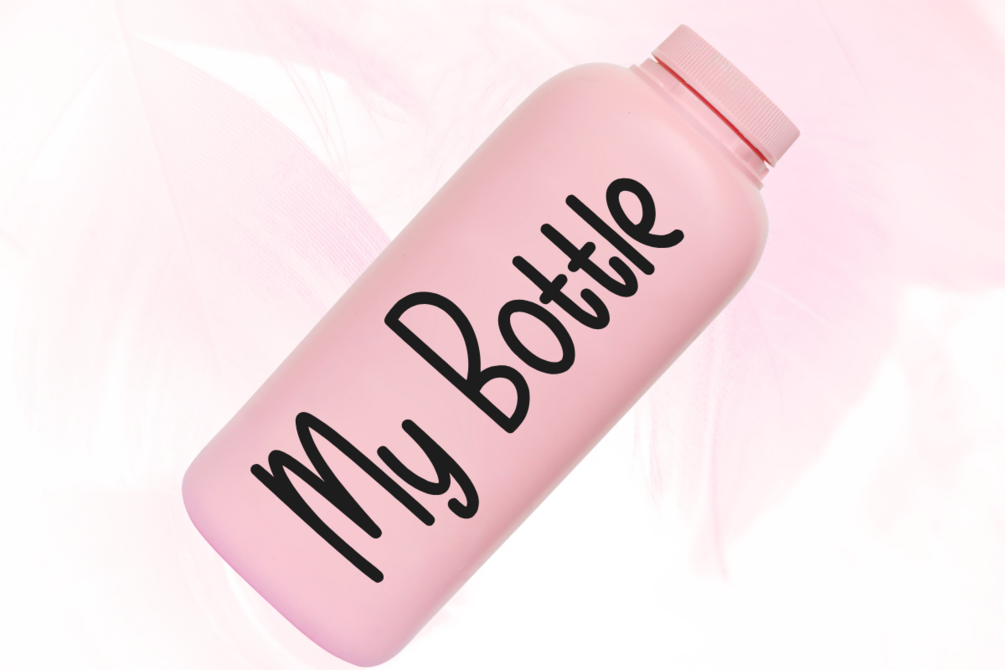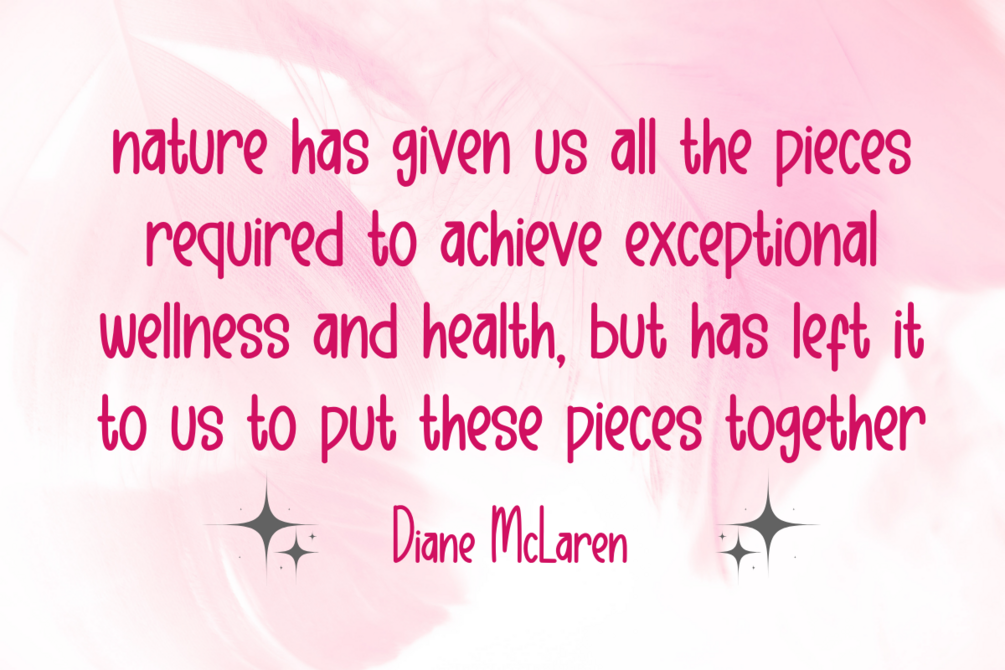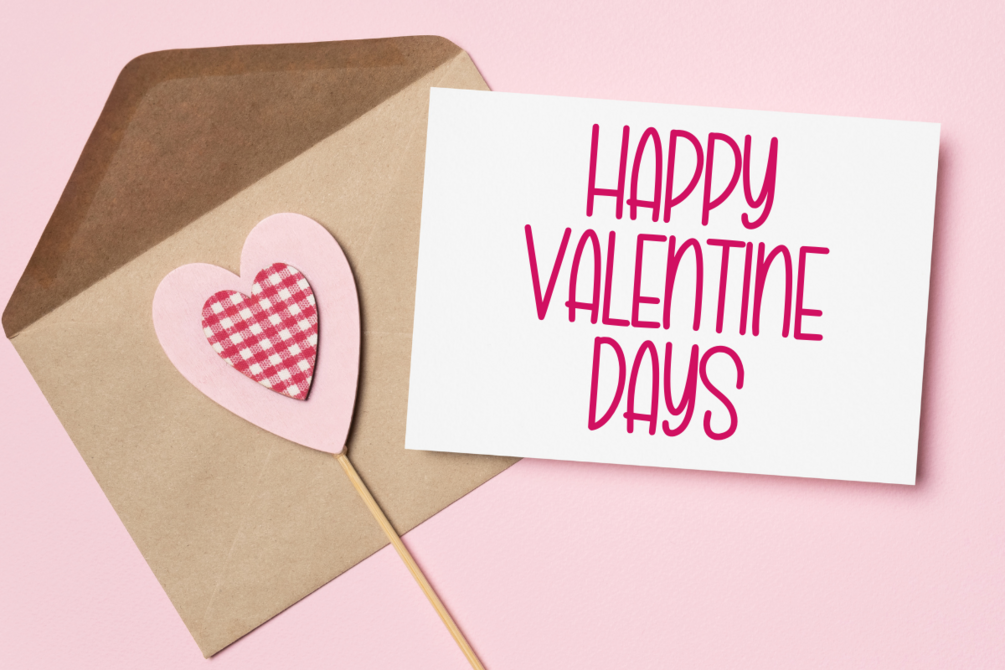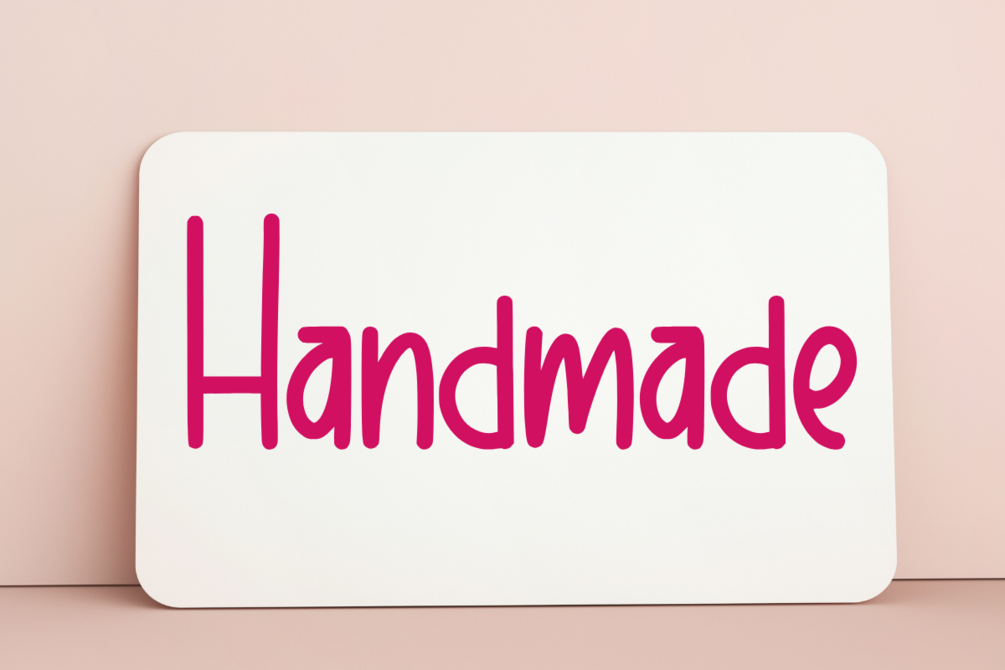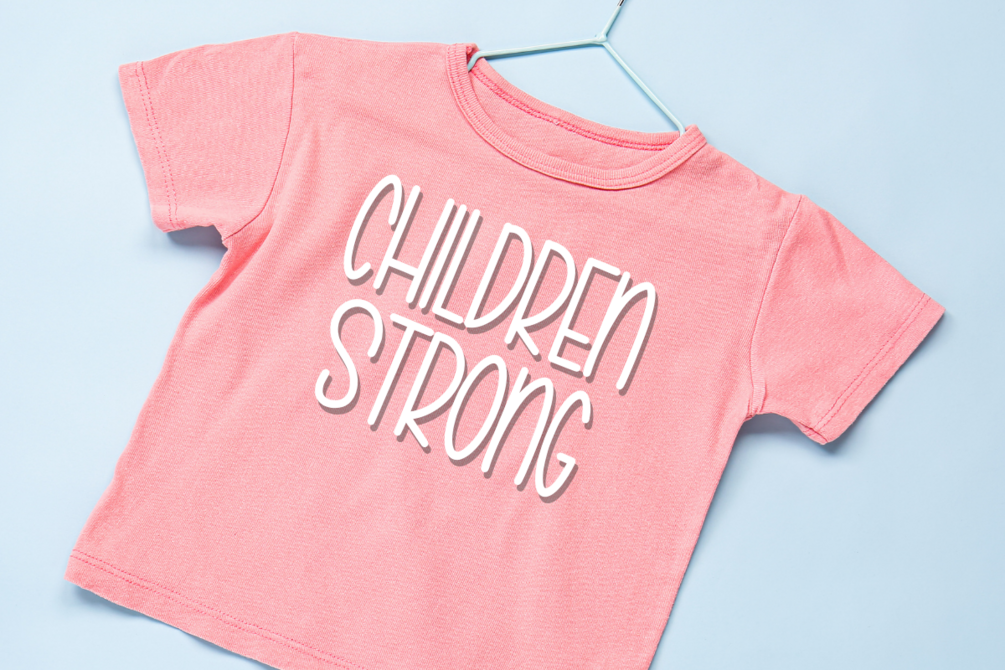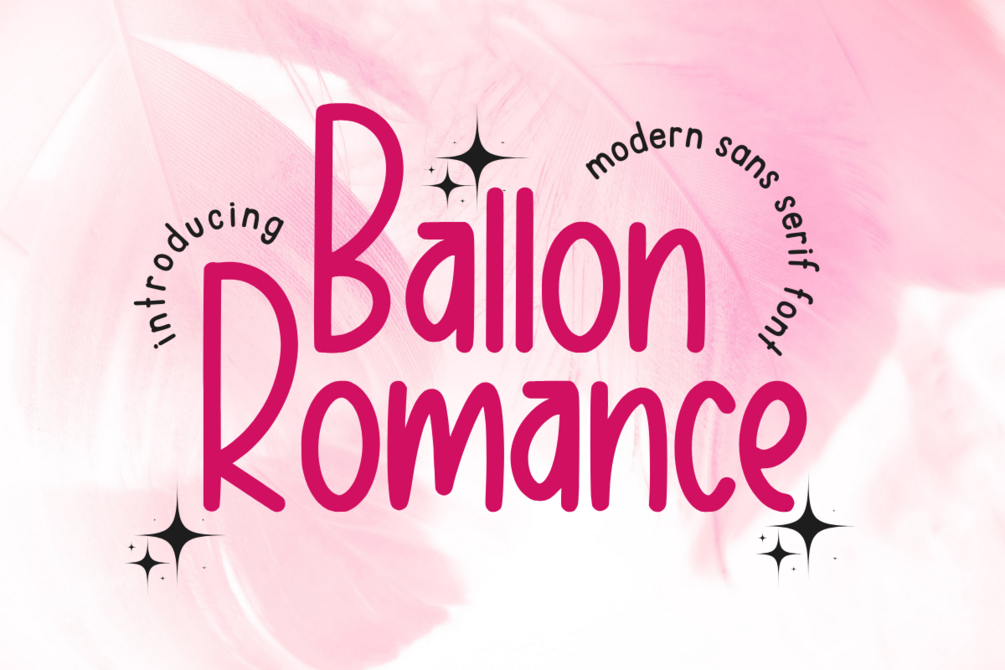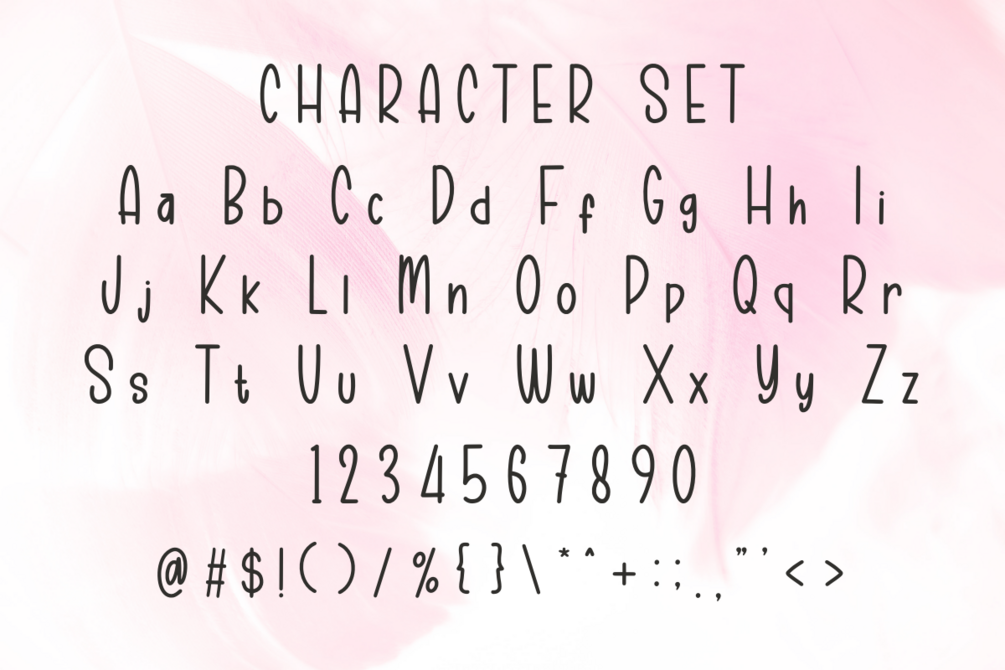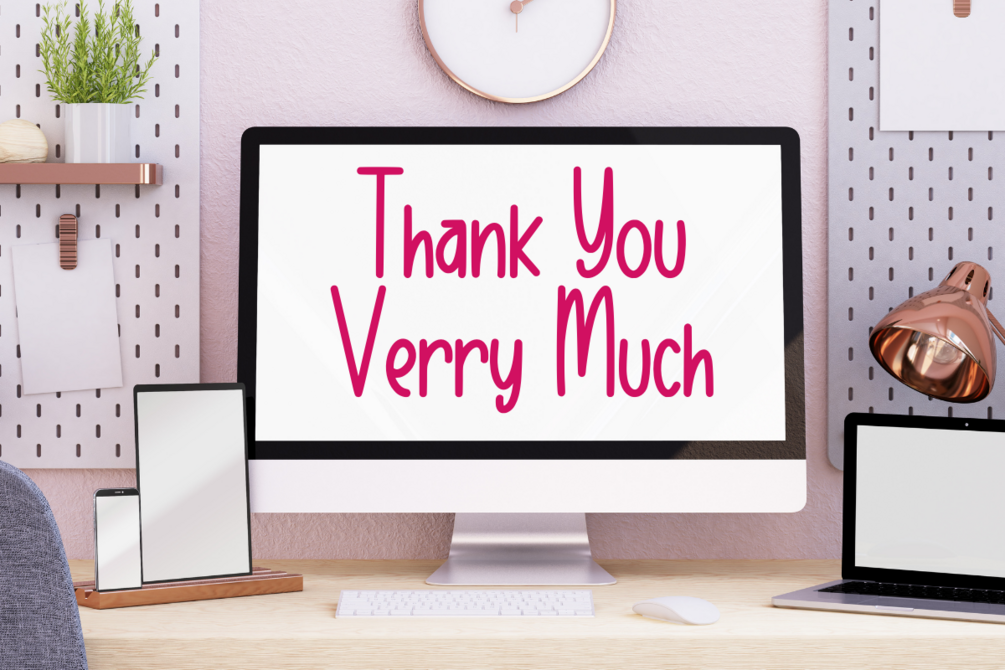
Ballon Romance - Modern Sans Serif Font
Ballon Romance is designed in a cute and friendly handwritten sans serif font style. This would be awesome for your fun projects or diary planner. Let’s try it for your perfect project like Easter, back to school, wedding, party decorations, invitations, Fall, Summer, Winter, Halloween, Christmas, posters, blogs, clothing, kids-related designs, greeting cards, social media posts, or anything that requires a friendly touch. Add it now to your font library.